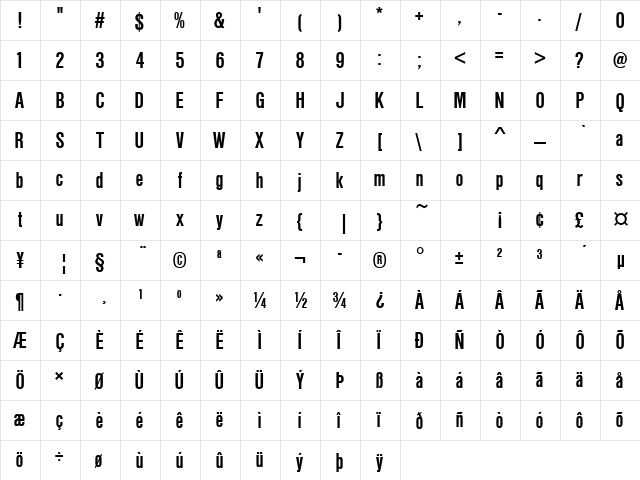
Nimbus Sans Becker PCon Bold Font Preview
Nimbus Sans Becker PCon Bold
Design Context for Nimbus Sans Becker PCon Typeface
Nimbus Sans Becker PCon takes a measured approach to typography — its balanced proportions and neutral character make it a reliable workhorse for both digital and print work. The heavy weight commands attention and anchors typographic hierarchies.